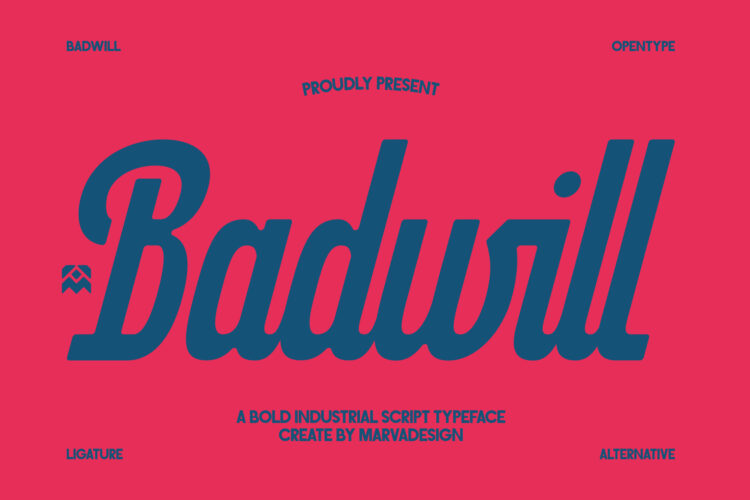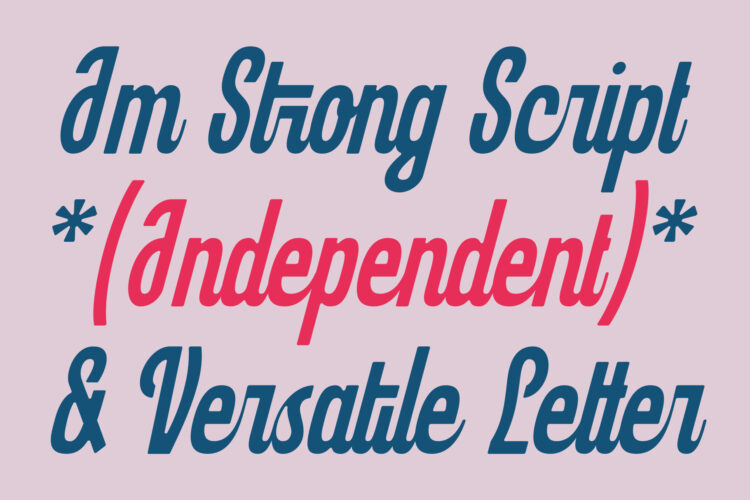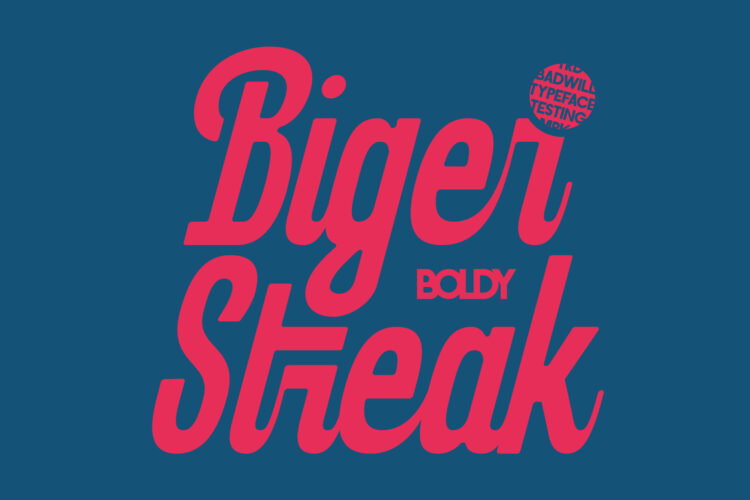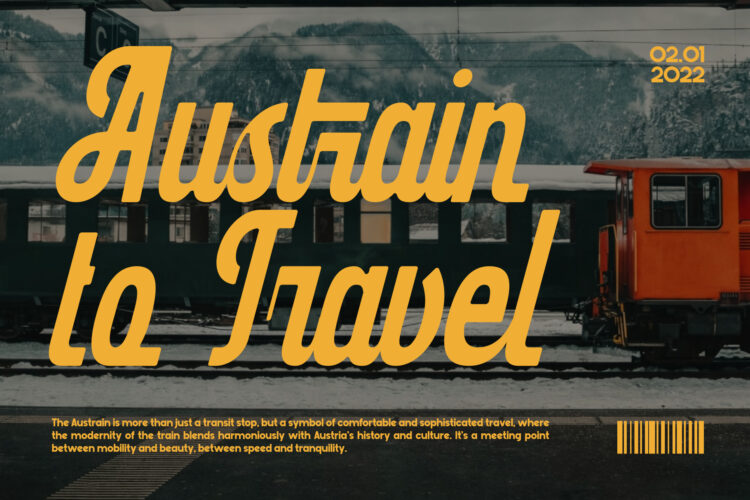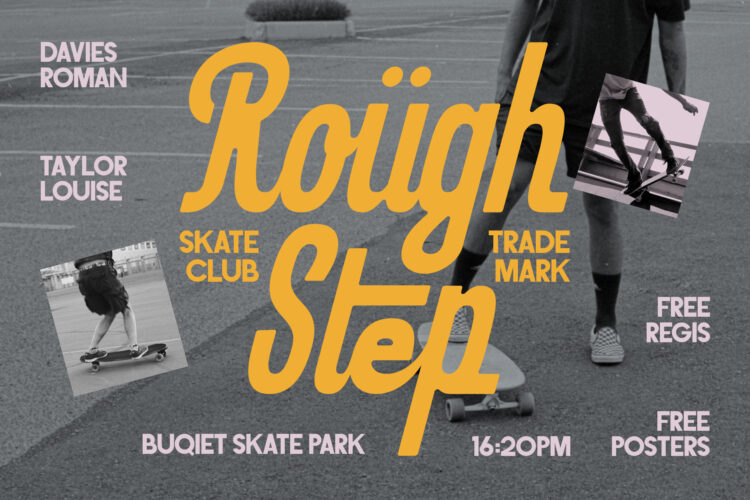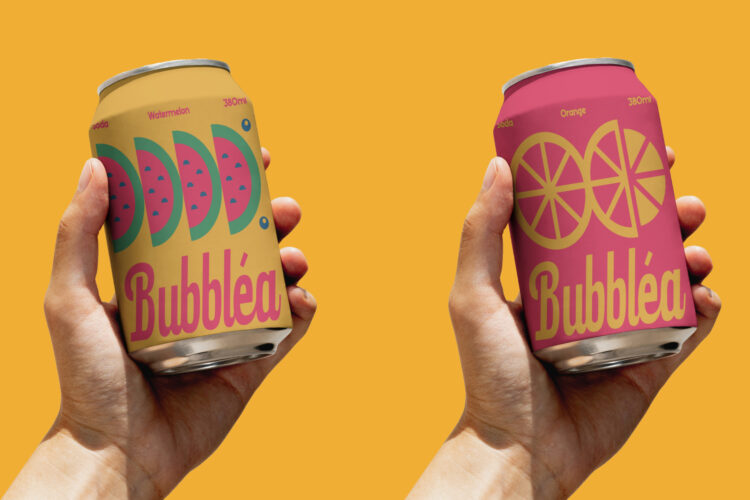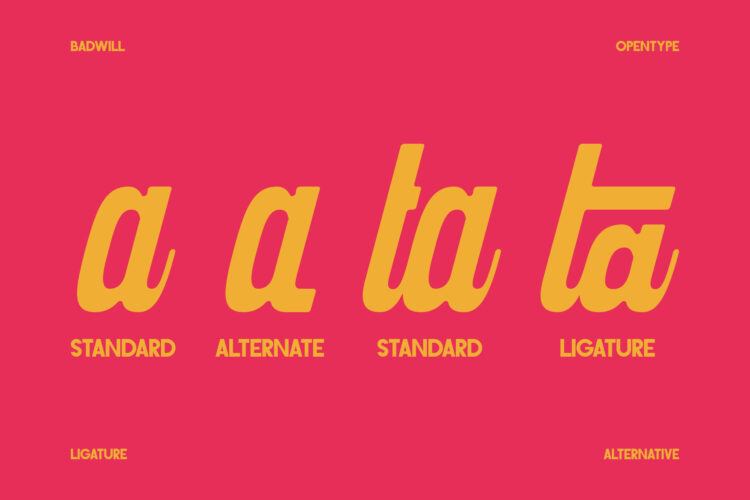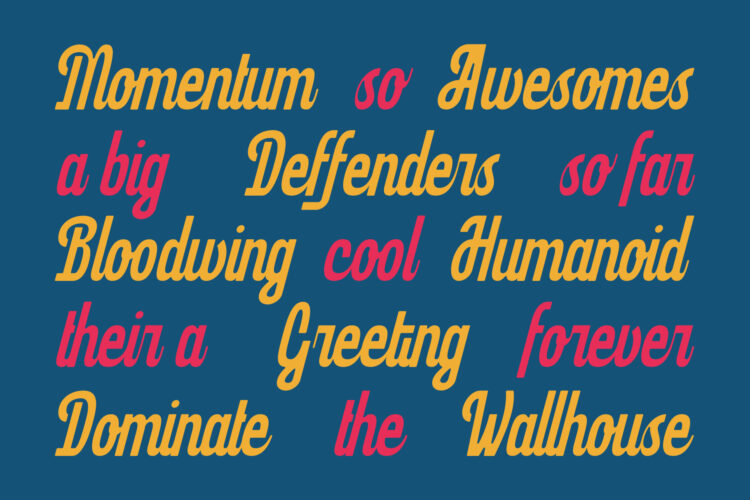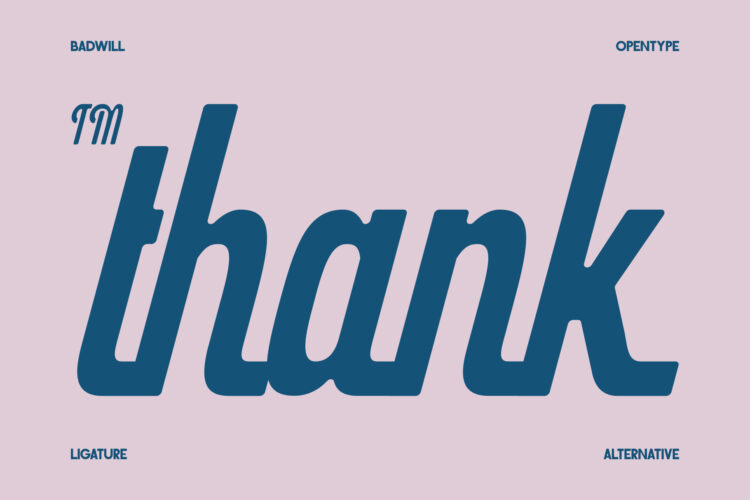
Badwill is a bold industrial script typeface that combines retro energy with modern confidence. Designed with thick, powerful strokes and smooth flowing connections, this font carries a strong handcrafted personality while maintaining a clean and controlled structure. The letterforms feature rounded terminals, dynamic curves, and slightly condensed proportions, creating a compact yet impactful appearance. Its high-contrast rhythm between thick vertical strokes and softer connecting lines gives the typeface a sense of movement and momentum, making it visually striking in large display settings. The capital letters are expressive and dominant, with dramatic swashes and confident curves, while the lowercase characters maintain smooth continuity for excellent readability.
Badwill also includes OpenType features such as ligatures and stylistic alternates, enhancing its versatility and allowing more natural script connections. The character set is complete with uppercase, lowercase, numerals, and punctuation, all crafted consistently to preserve its bold industrial aesthetic.